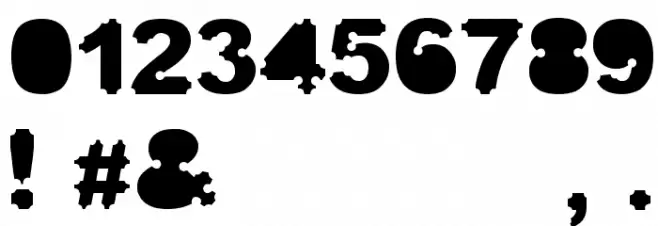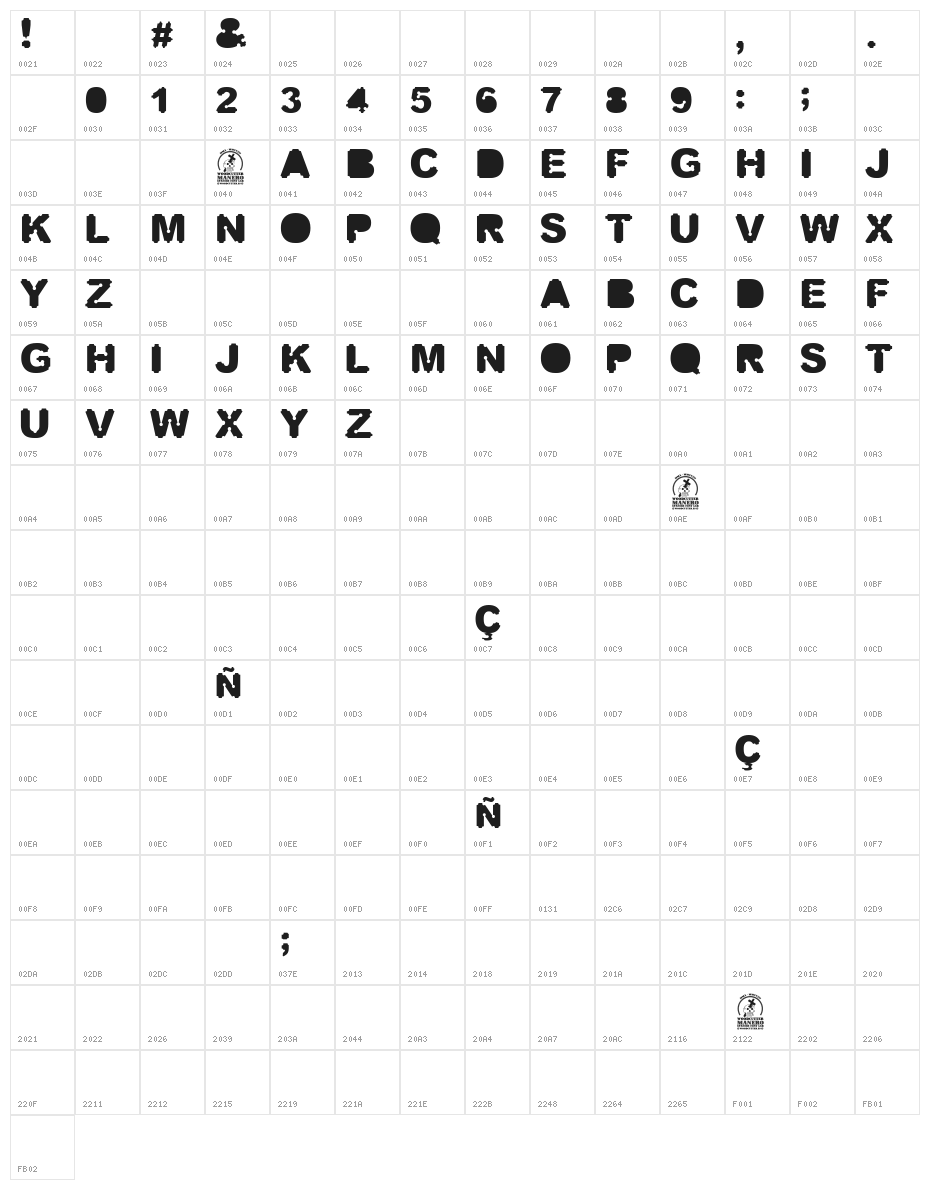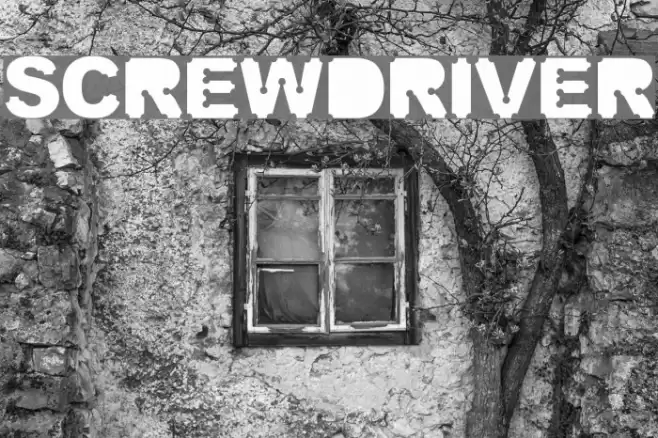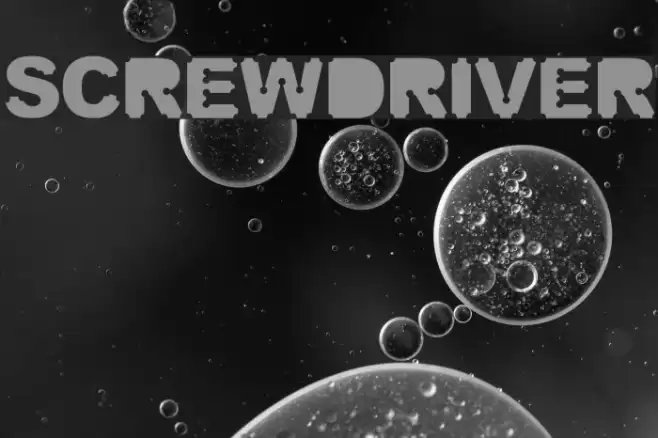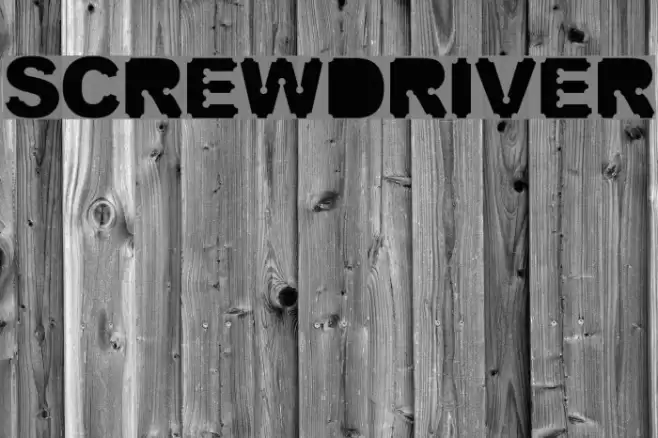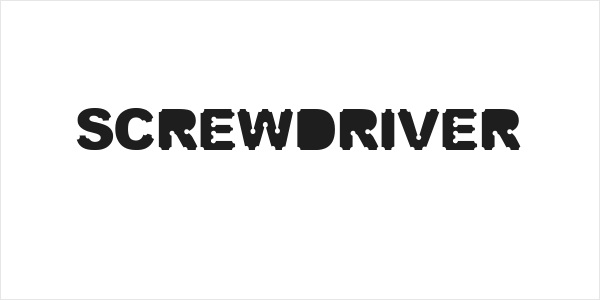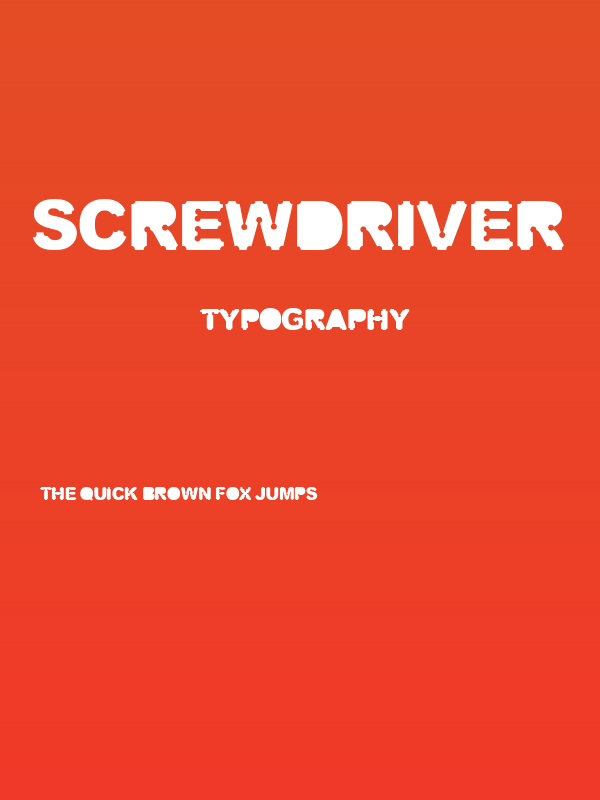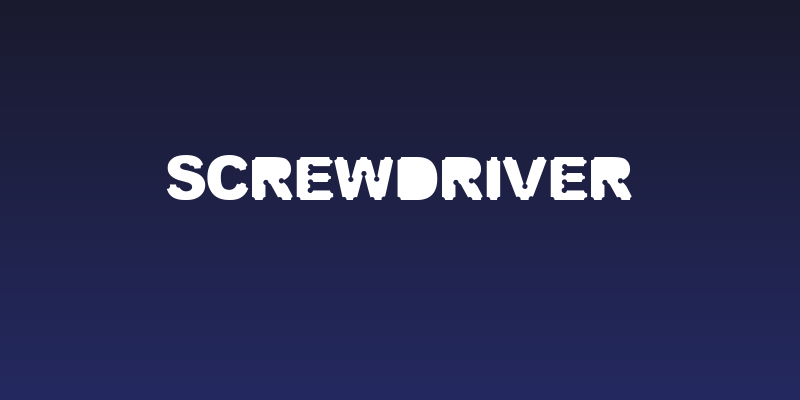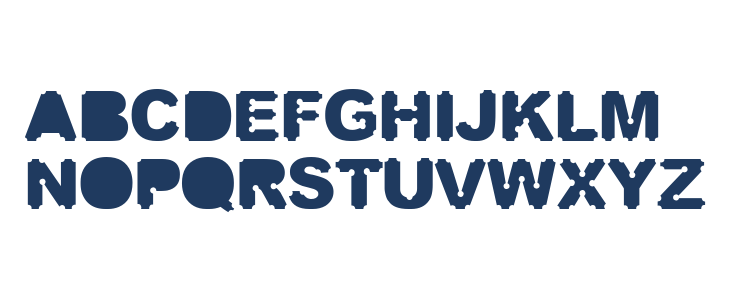
Screwdriver Font
Screwdriver Description
This font features a bold and playful style with a distinct industrial and mechanical influence. The characters are thick and robust, with unique cut-out shapes that give them a gear-like appearance. The uppercase and lowercase letters maintain a consistent weight, creating a strong visual impact. The numbers and special characters follow the same design principles, ensuring uniformity across the font. Its boldness and unique design make it stand out, ideal for projects that require a strong and memorable typeface.
| Overall Style | Industrial, Playful |
| Proposed Projects | Ideal for branding, posters, and signage that require a strong, industrial aesthetic. |